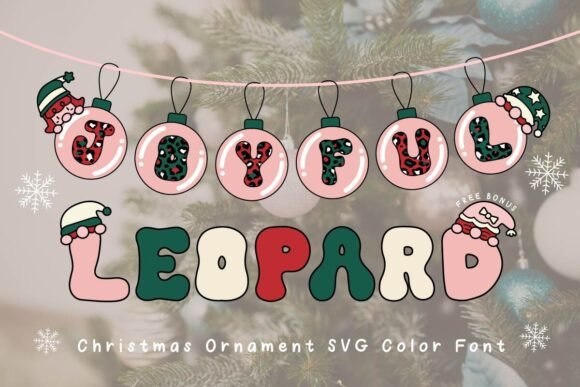
Introducing the Joyful Leopard Font: A Groovy Christmas Theme for Your Designs
The holiday season is upon us, and what better way to get into the festive spirit than with a fun and vibrant font that’s perfect for all your design projects? Look no further than the Joyful Leopard Font, a unique and playful font that’s inspired by popular leopard patterns combined with Groovy-style lettering in a Christmas theme. In this article, we’ll take a closer look at the features and benefits of this exciting new font, and explore how you can use it to add some joy and color to your designs.
A Playful and Vibrant Look
The Joyful Leopard Font is a true showstopper, with its bold and colorful design that’s sure to grab attention. The font features a unique blend of leopard patterns and Groovy-style lettering, creating a playful and vibrant look that’s perfect for the holiday season. Whether you’re designing T-shirt prints, mugs, greeting cards, stickers, or other media, this font is sure to add a fun and festive touch to your projects.
Key Features of the Joyful Leopard Font
- 6 styles to choose from: The Joyful Leopard Font offers six different styles to suit your design needs, from bold and colorful to more subtle and elegant.
- Special bonus elements: The font includes special bonus elements, such as letters in PNG and SVG formats, as well as Gnomes that add fun and color to your designs.
Using the Joyful Leopard Font in Your Designs
The Joyful Leopard Font is perfect for a wide range of design projects, from festive holiday cards to fun and colorful T-shirt prints. Here are just a few ideas to get you started:
Design Ideas to Get You Started
- T-shirt prints: Use the Joyful Leopard Font to create fun and colorful T-shirt prints that are perfect for the holiday season.
- Mugs and water bottles: Add a festive touch to your mug and water bottle designs with the Joyful Leopard Font.
- Greeting cards and invitations: Use the font to create fun and playful greeting cards and invitations for the holiday season.
- Stickers and decals: The Joyful Leopard Font is perfect for creating fun and colorful stickers and decals that are perfect for decorating laptops, water bottles, and more.
The Joyful Leopard Font is a fun and vibrant font that’s perfect for adding a festive touch to your designs. With its playful and colorful design, this font is sure to grab attention and bring joy to your projects. Whether you’re a designer, crafter, or maker, the Joyful Leopard Font is a great addition to your font library. So why wait? Download the Joyful Leopard Font today and start creating your own fun and festive designs!